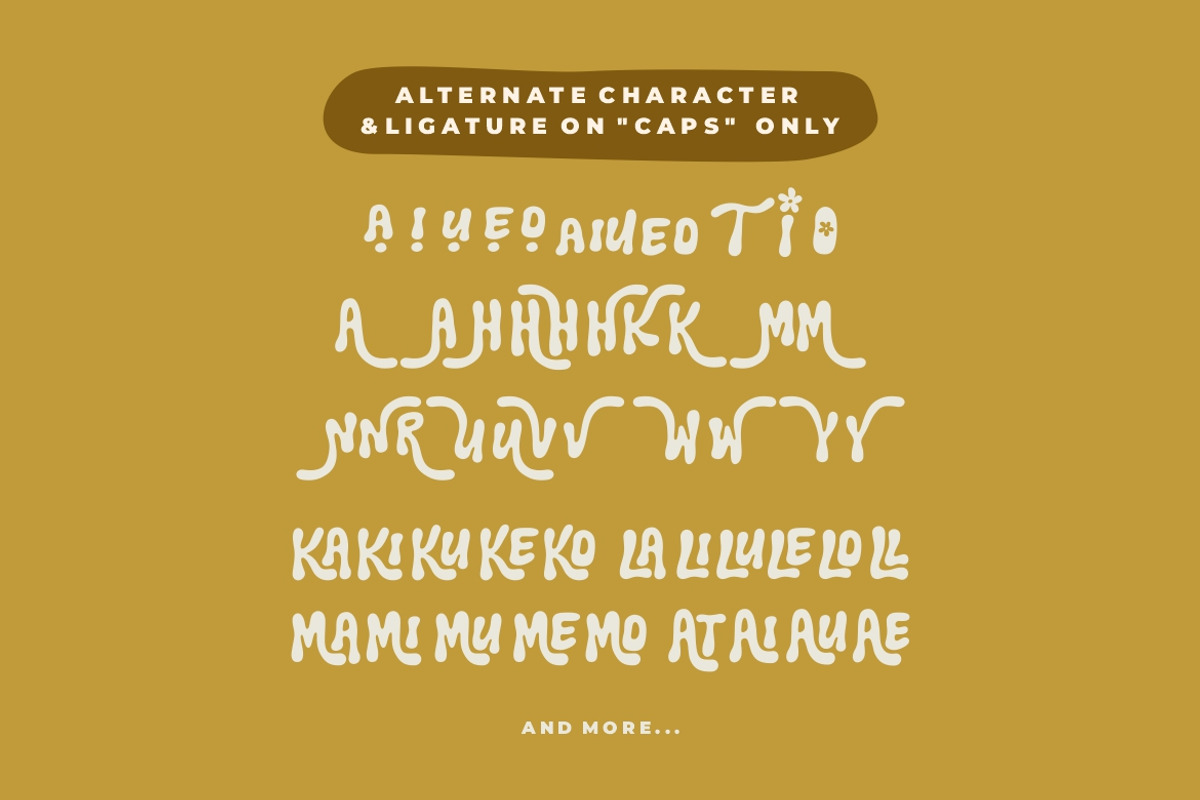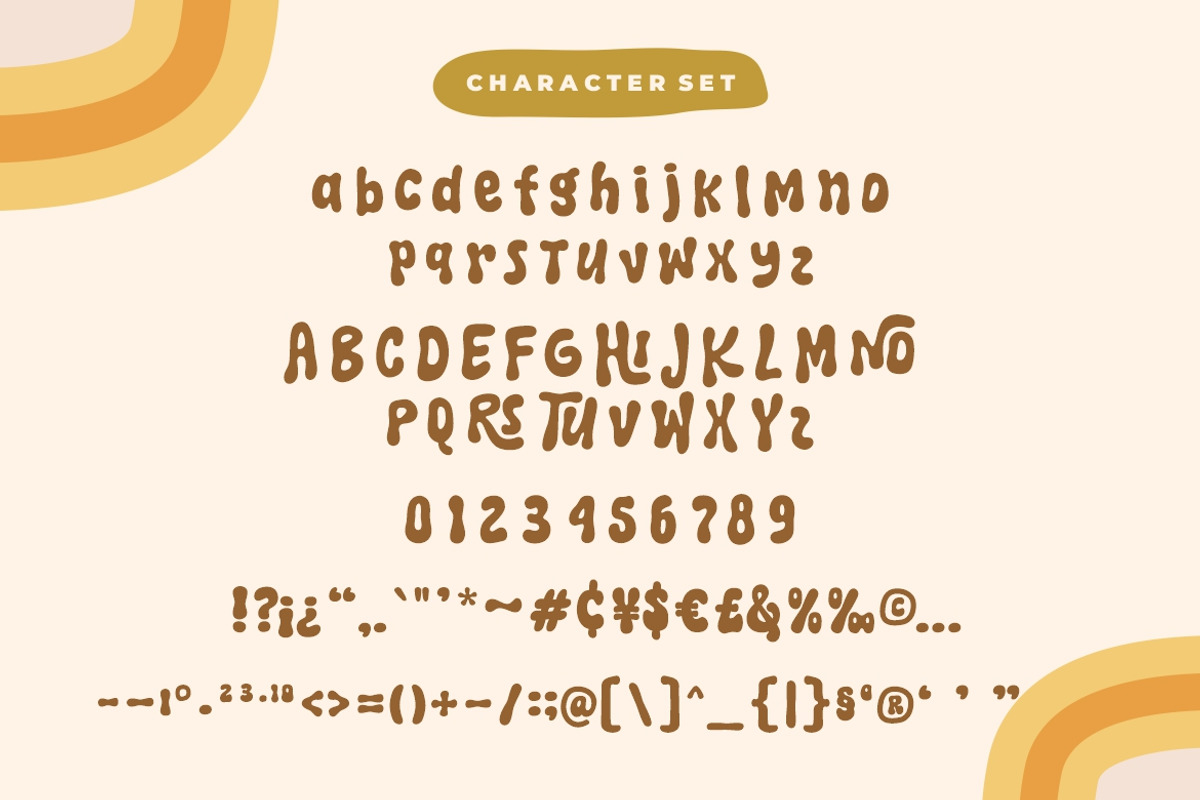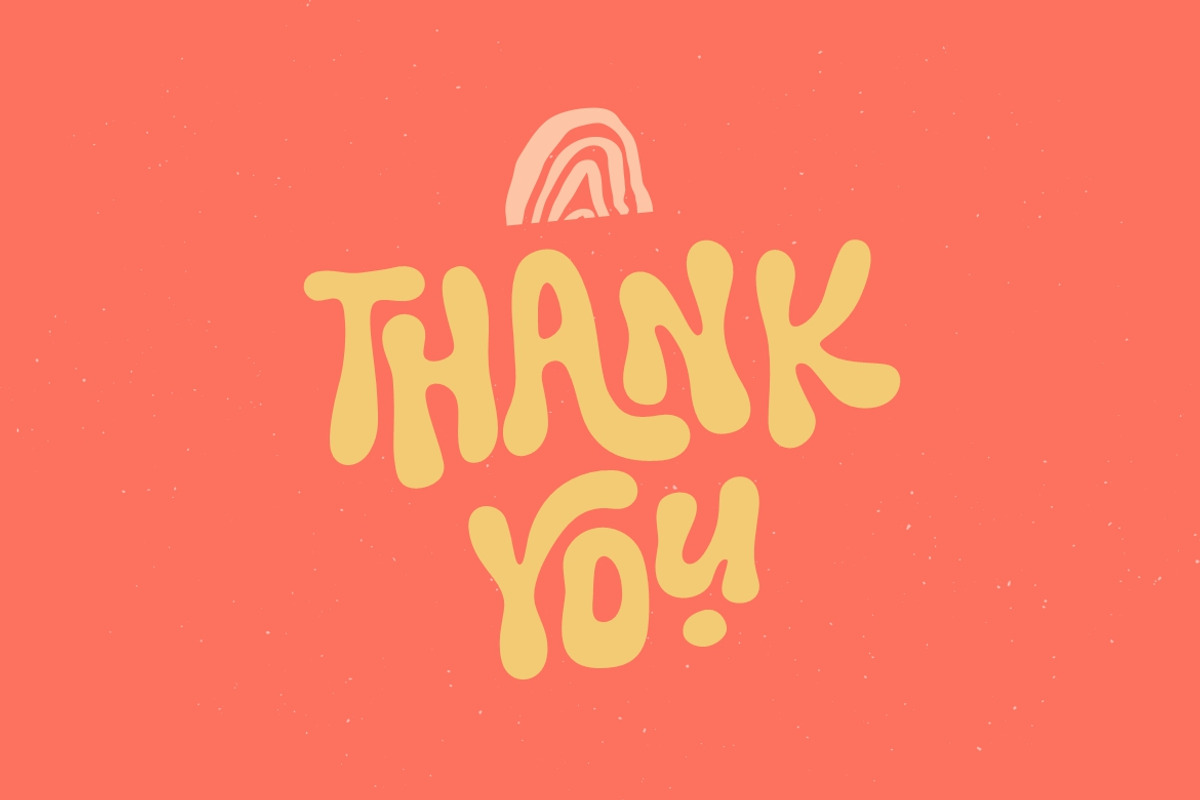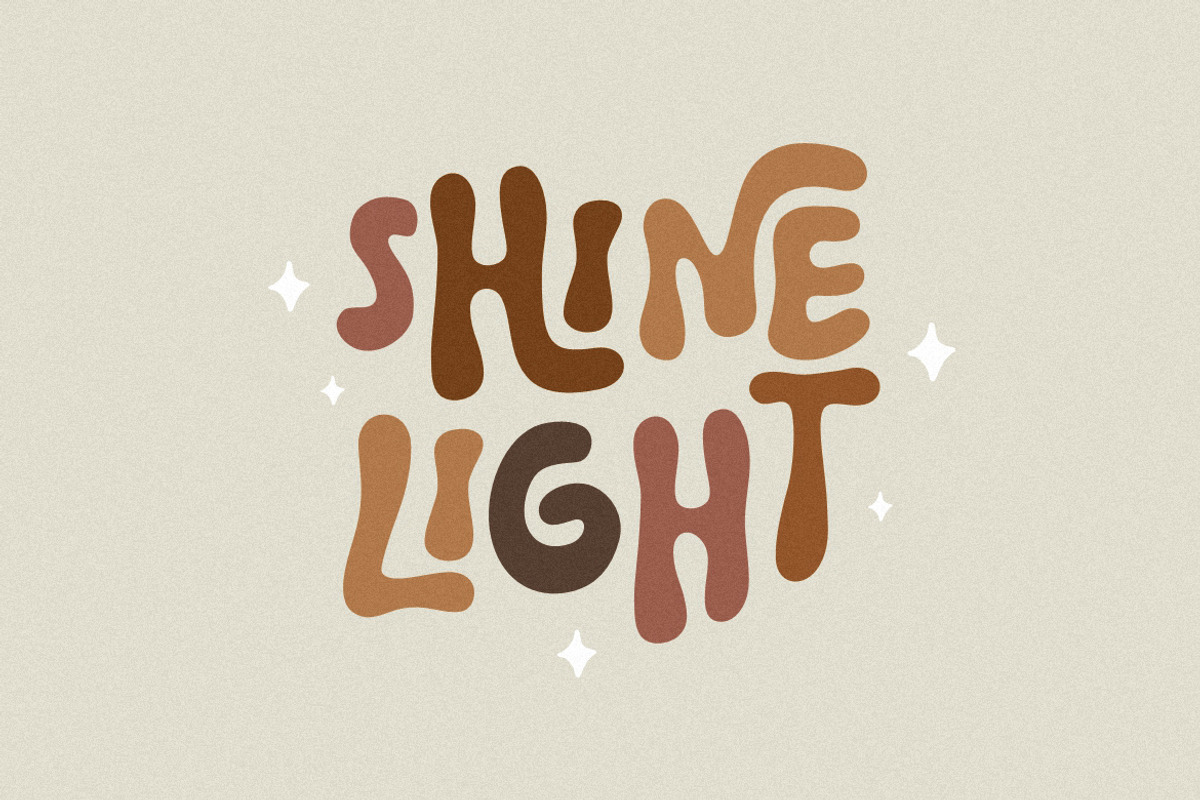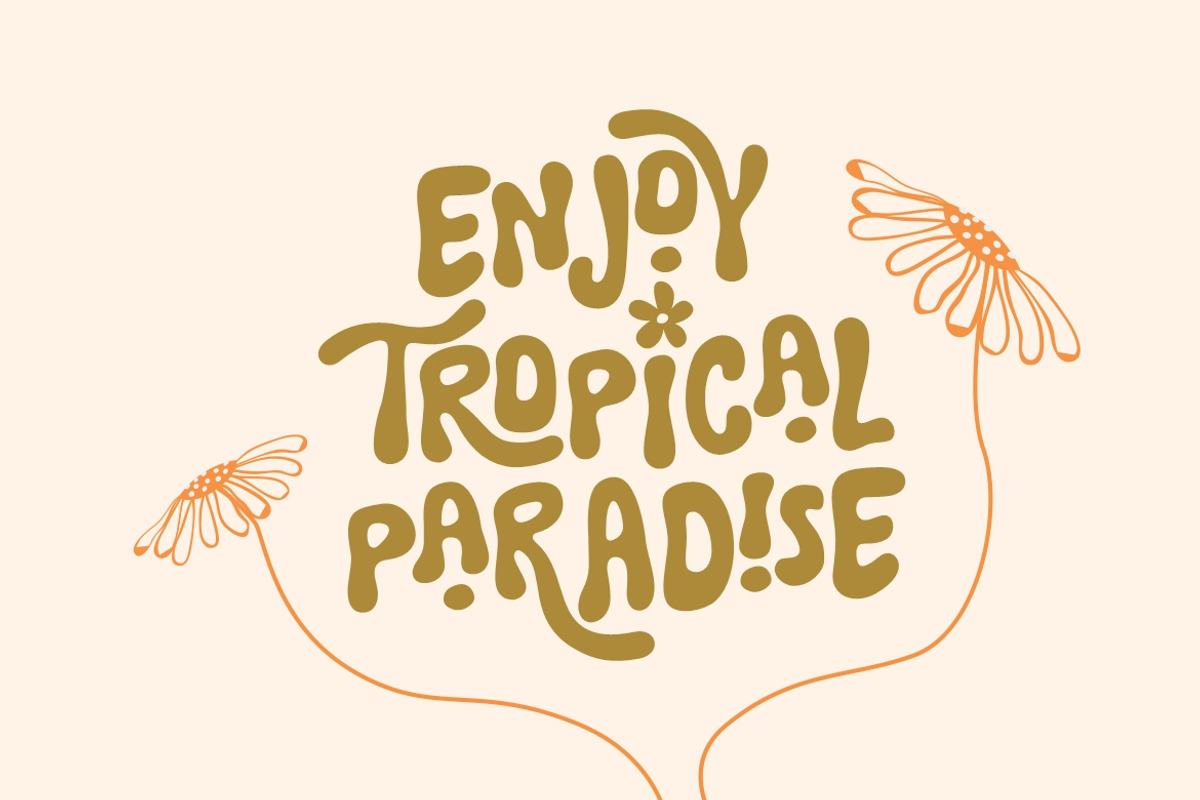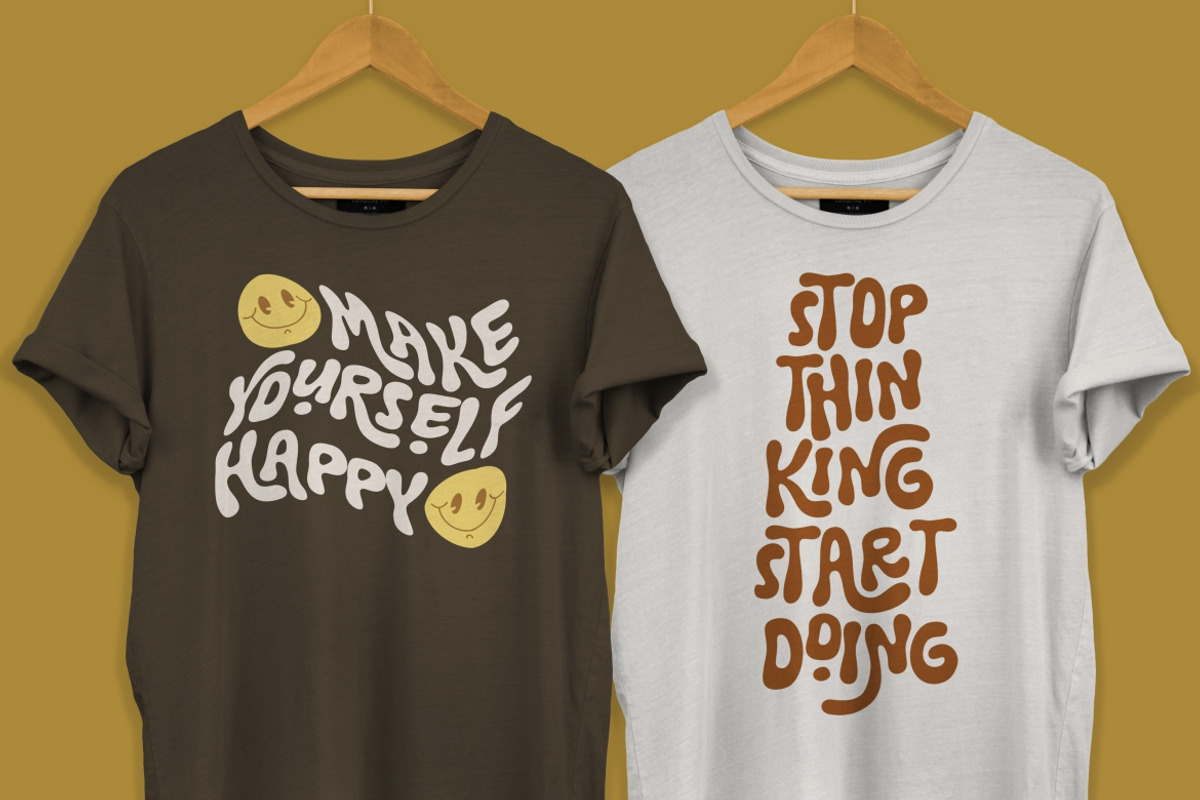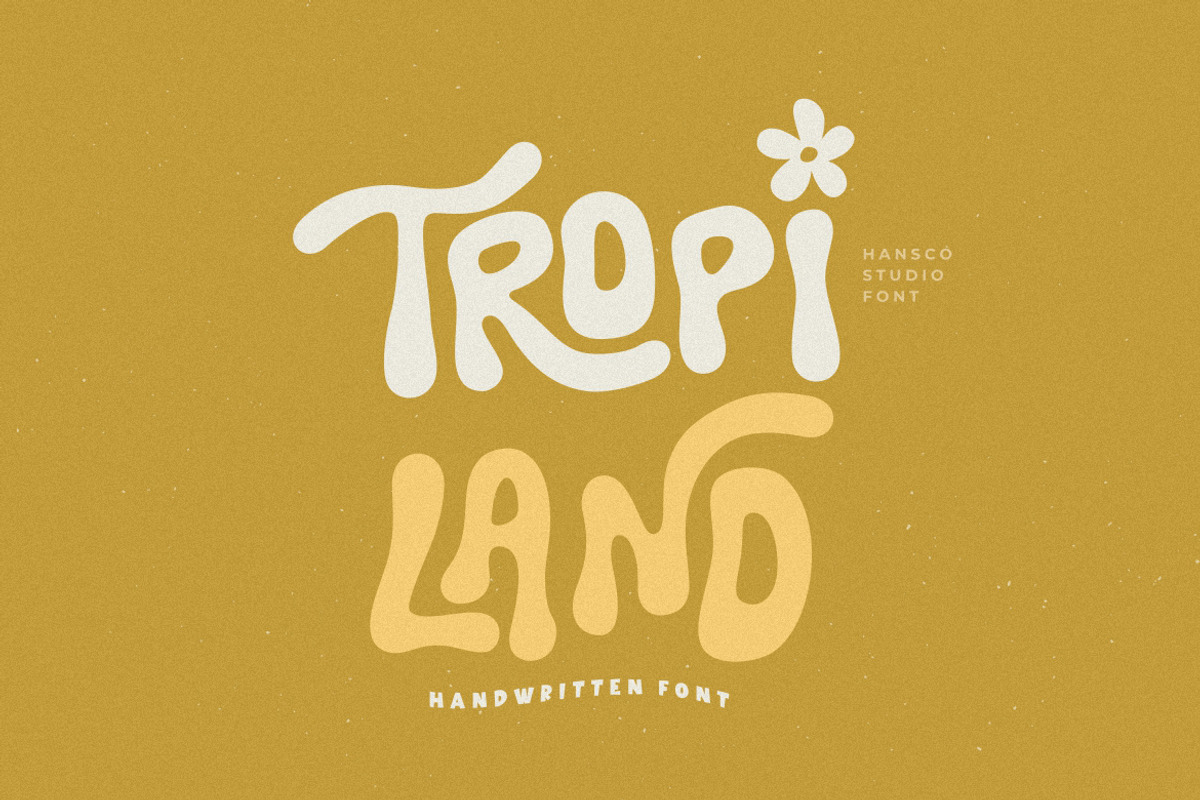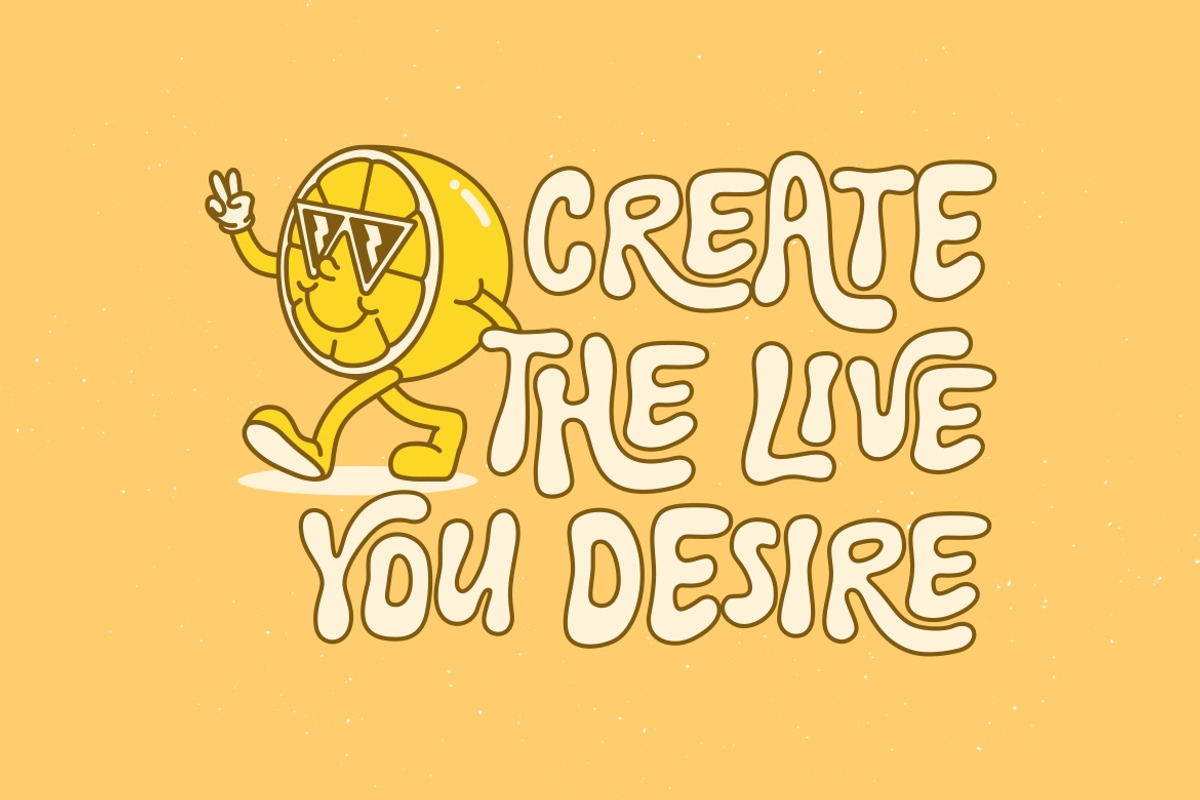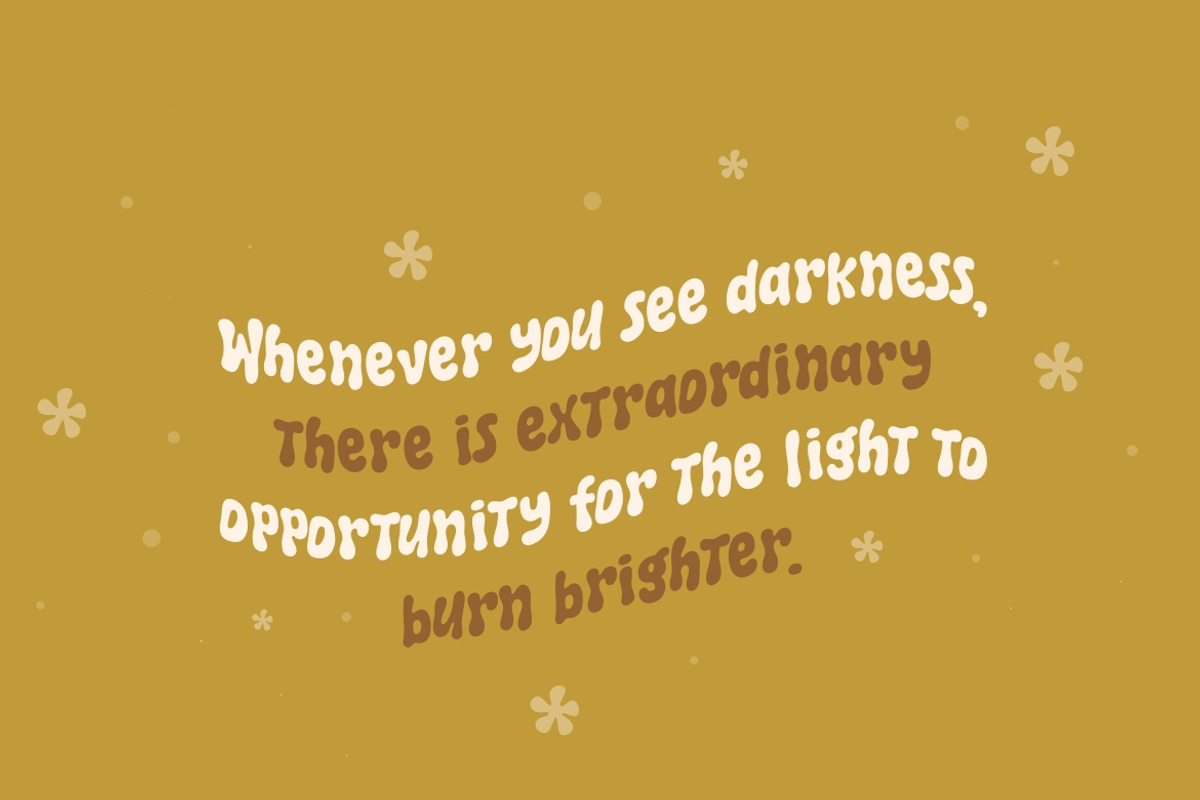
Tropi Land
Tropi Land font is a wavy, playful and natural handwritten sans serif font. You will find many ligatures and alternate character in it. This font is perfect for creating logo, watermark, branding, wedding invitation, quote, tagline, or anything else. Let's make something beautiful project with this.